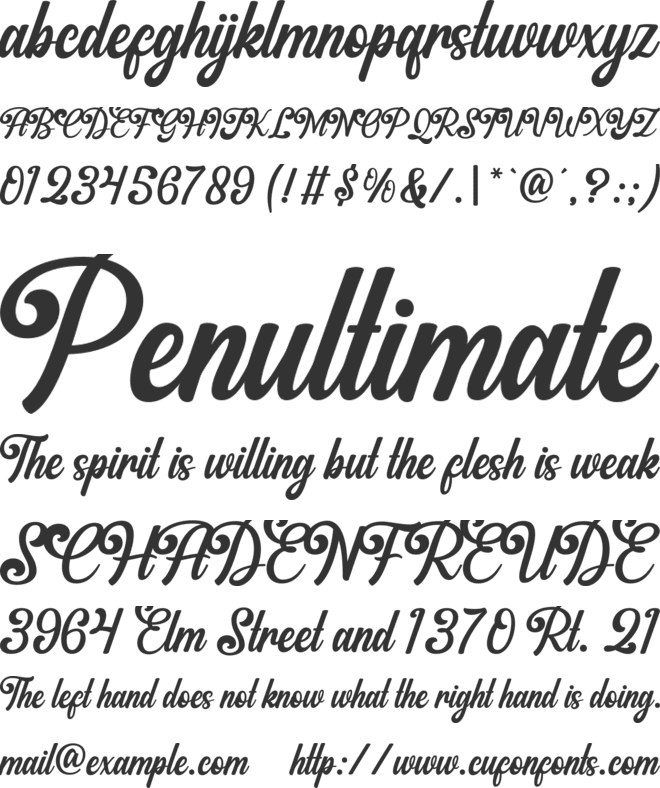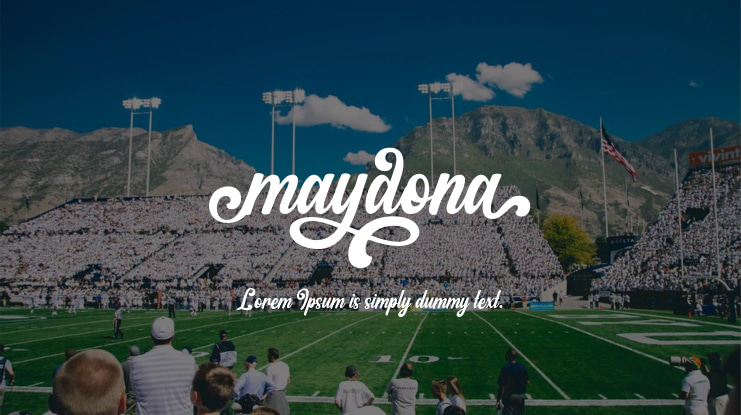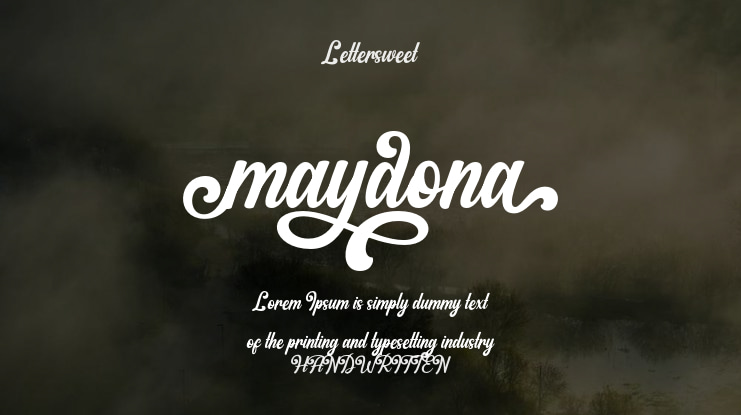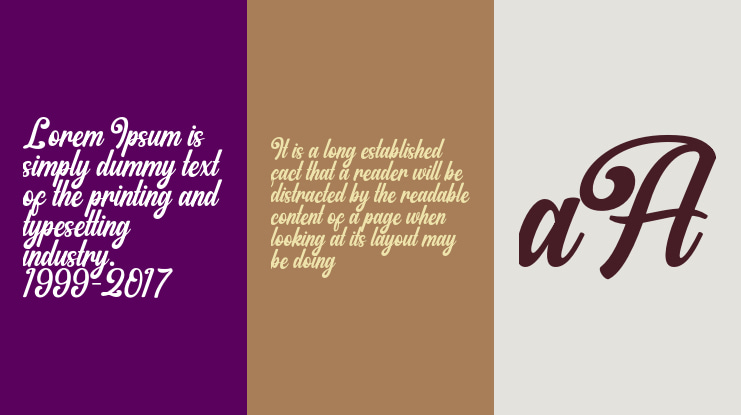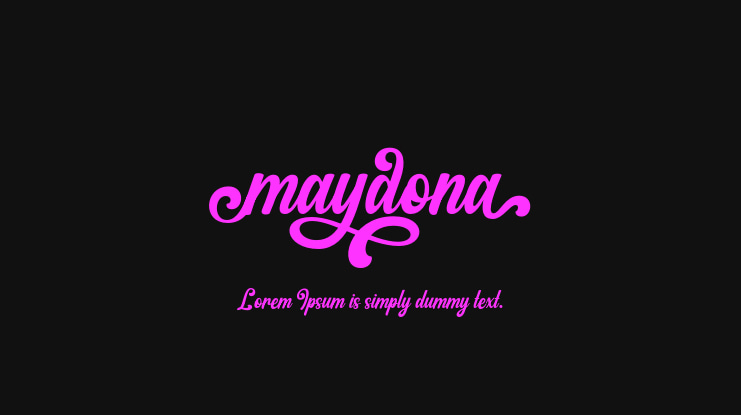
Maydona Font
Unveiling Maydona, a beautifully crafted calligraphic font brimming with an array of alternative styles, unveils an infinite landscape of design opportunities. This one-of-a-kind typeface is distinguished by its PUA encoding, guaranteeing simple access to all glyphs and swashes, thus turning design into a seamless process. Enhance your artwork with this striking font and take your designs to a mesmerizing level of charm. Allow Maydona to transform your mundane into the extraordinary. And remember, the key to excellent design is always joy!